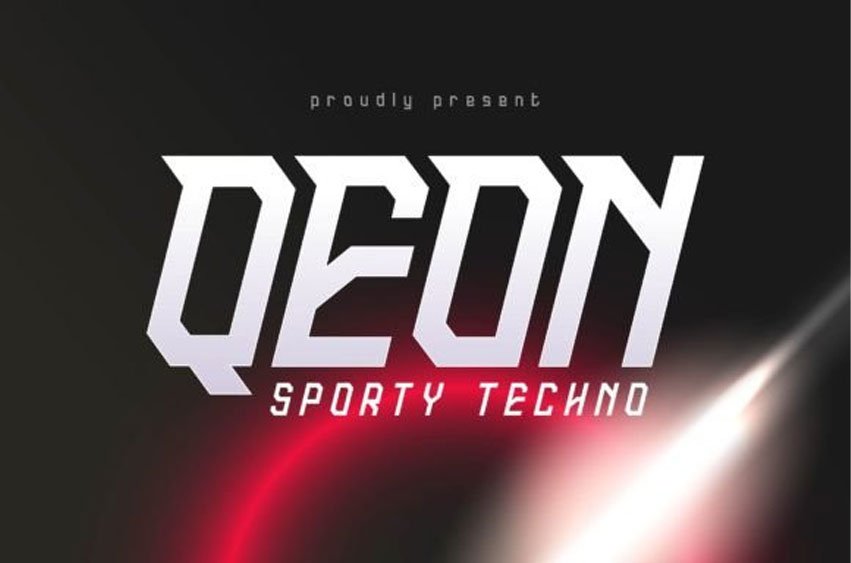
Qeon Font is a stylish and modern font with a sporty, high-tech look.
Its sleek lines and bold design make it perfect for projects that need a futuristic or energetic vibe. Ideal for logos, posters, and digital artwork, Qeon adds a dynamic and contemporary feel to any text.